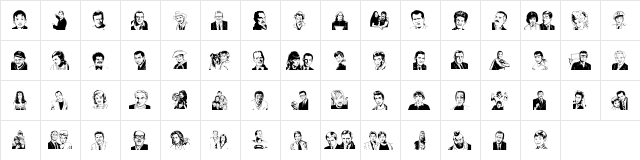
Quotidian Regular Font Preview
Quotidian Regular
Design Context for Quotidian Typeface
Quotidian is a composed and adaptable typeface that performs quietly and consistently across a wide range of design contexts.